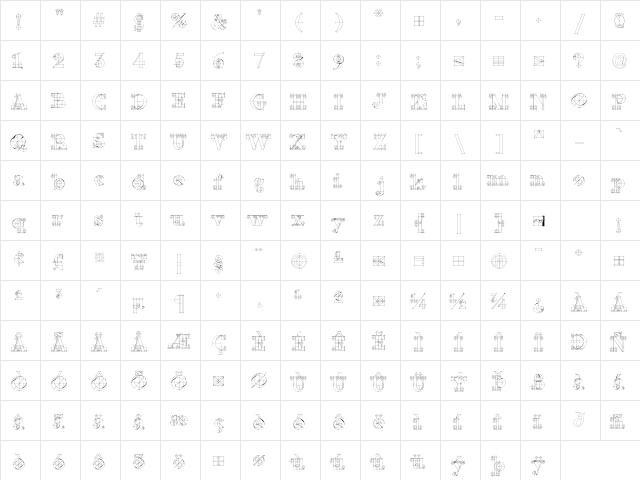
Rubino Serif Guides Regular
Design Context for Rubino Serif Guides Typeface
Rubino Serif Guides carries the refined structure of traditional serif typography, with bracketed terminals and considered proportions that communicate credibility and craft.